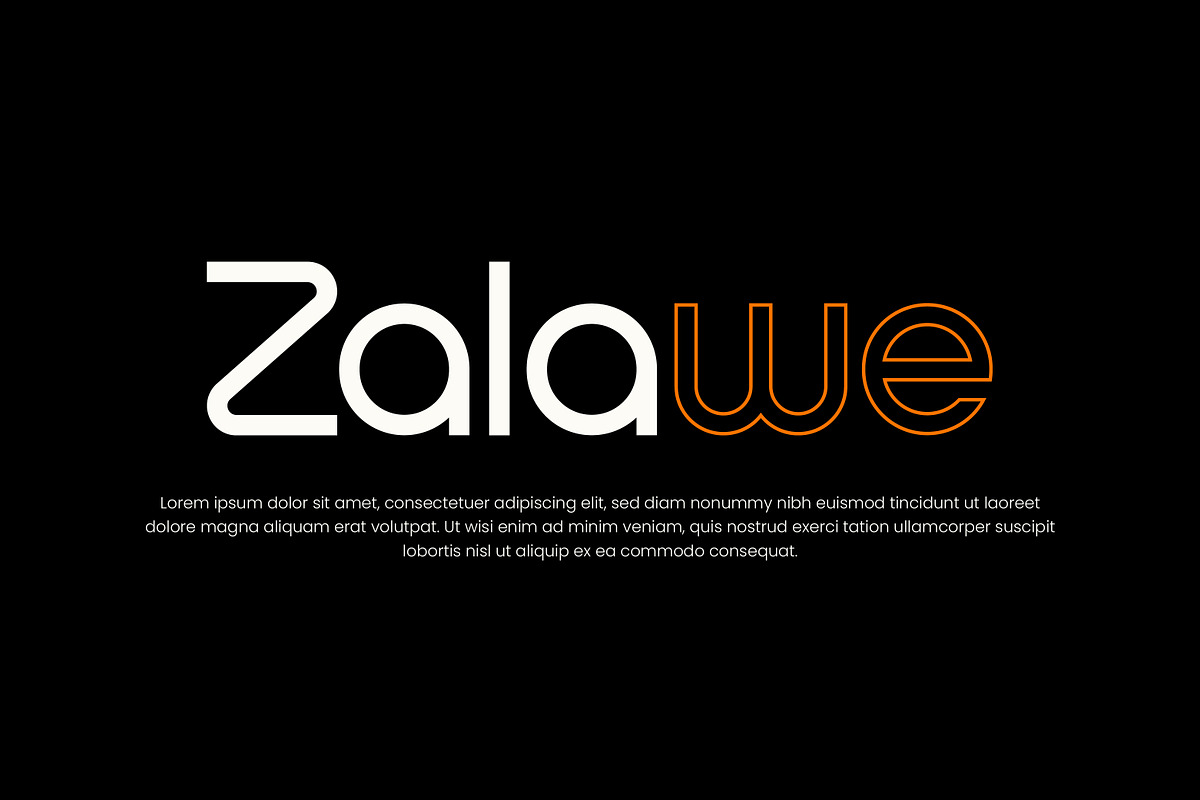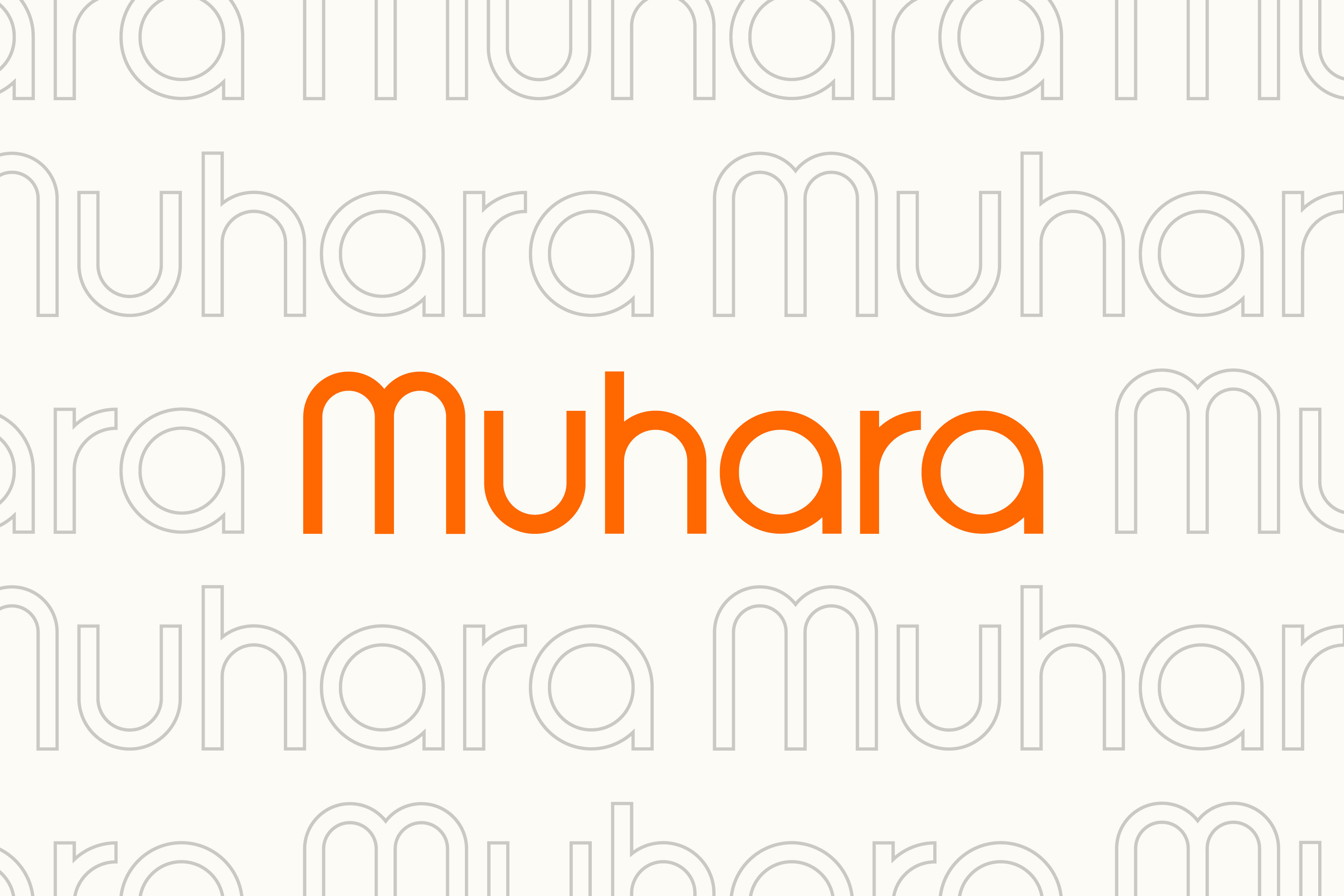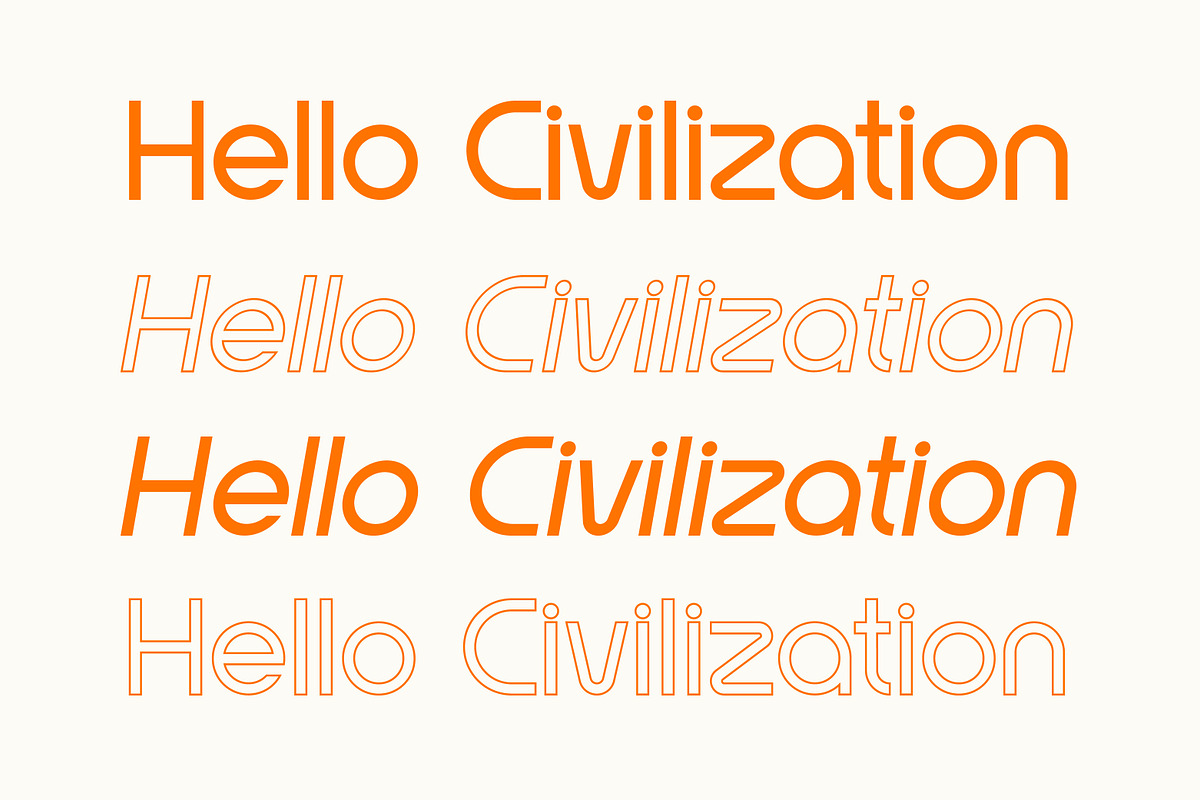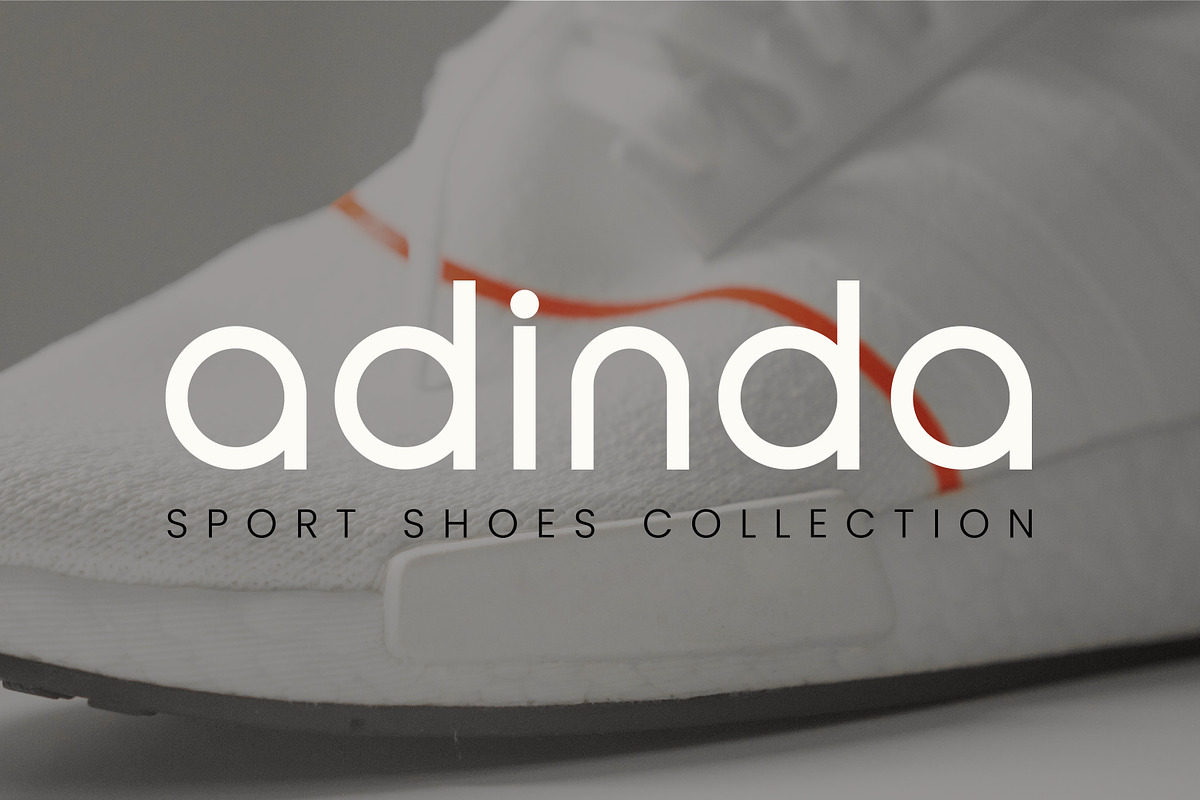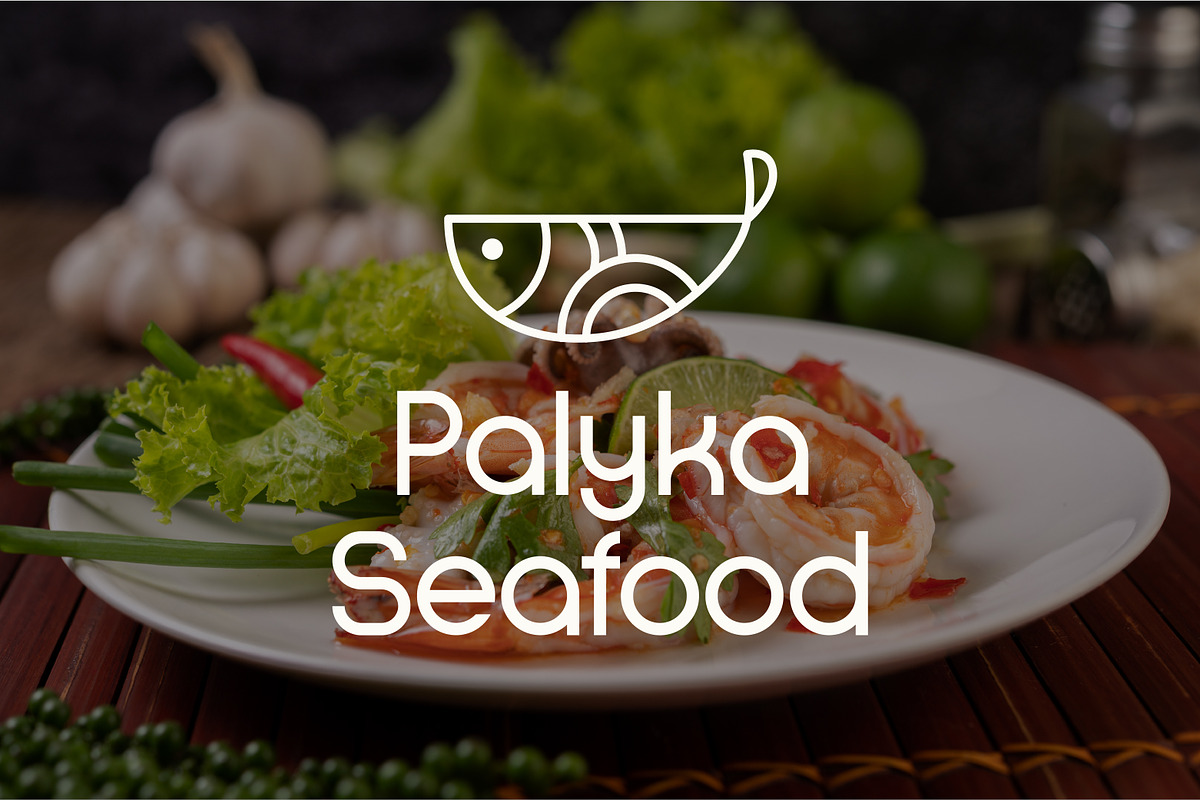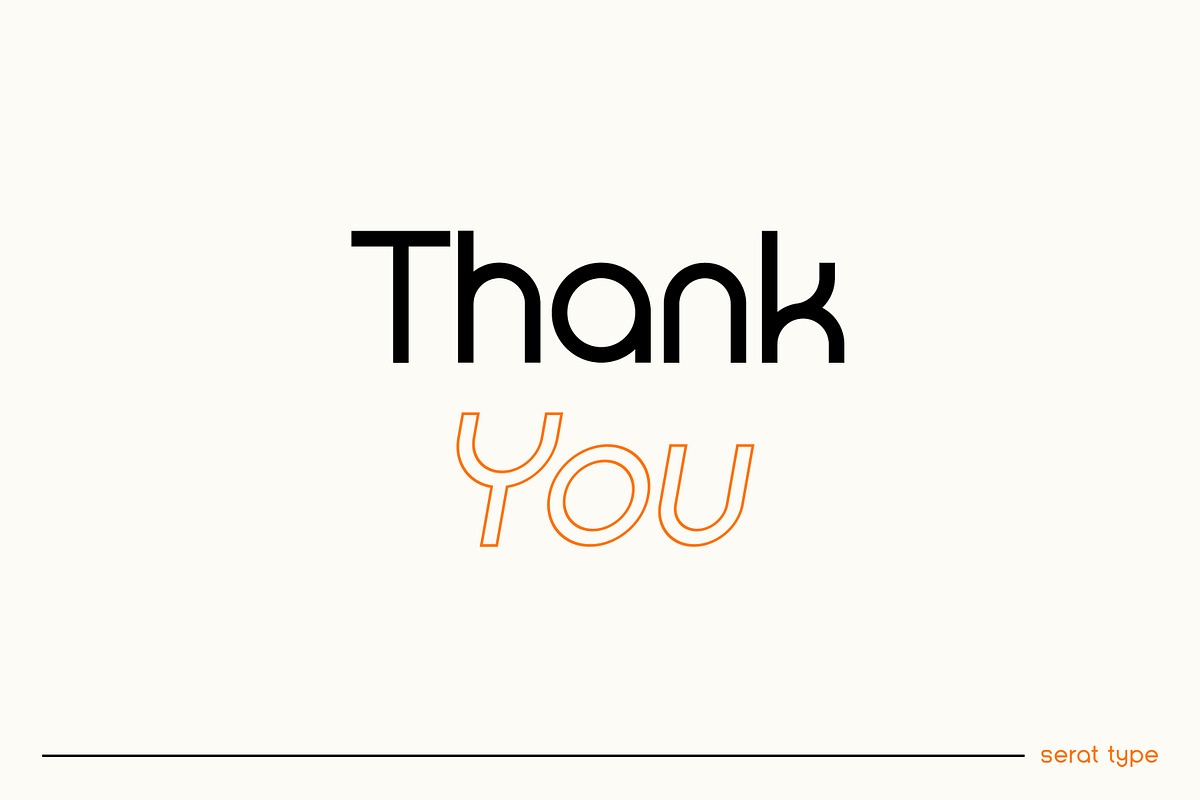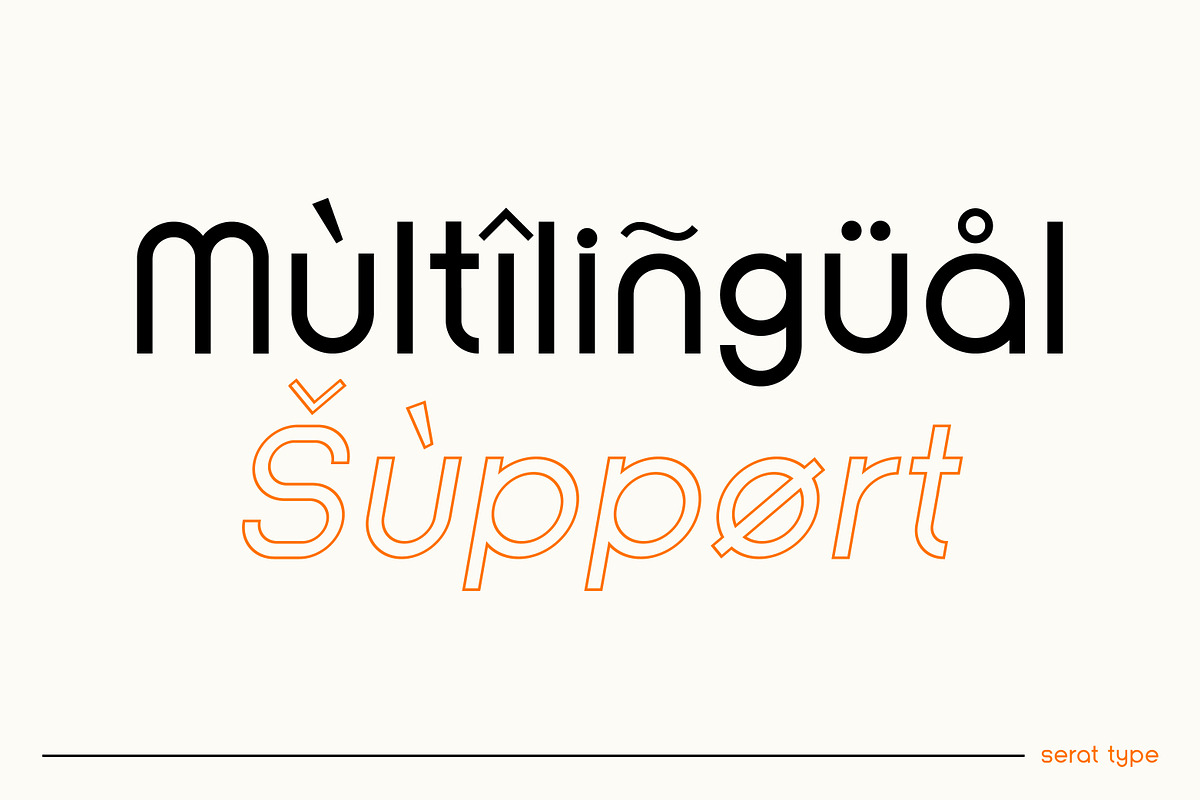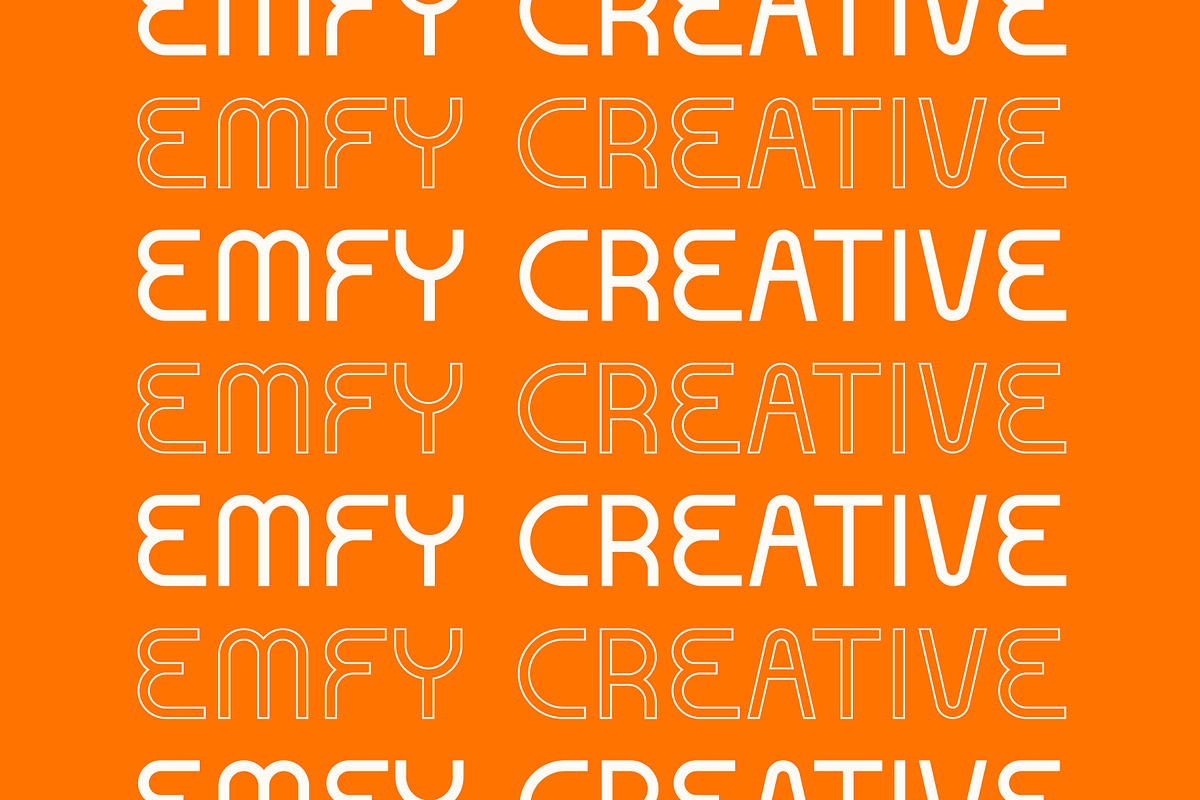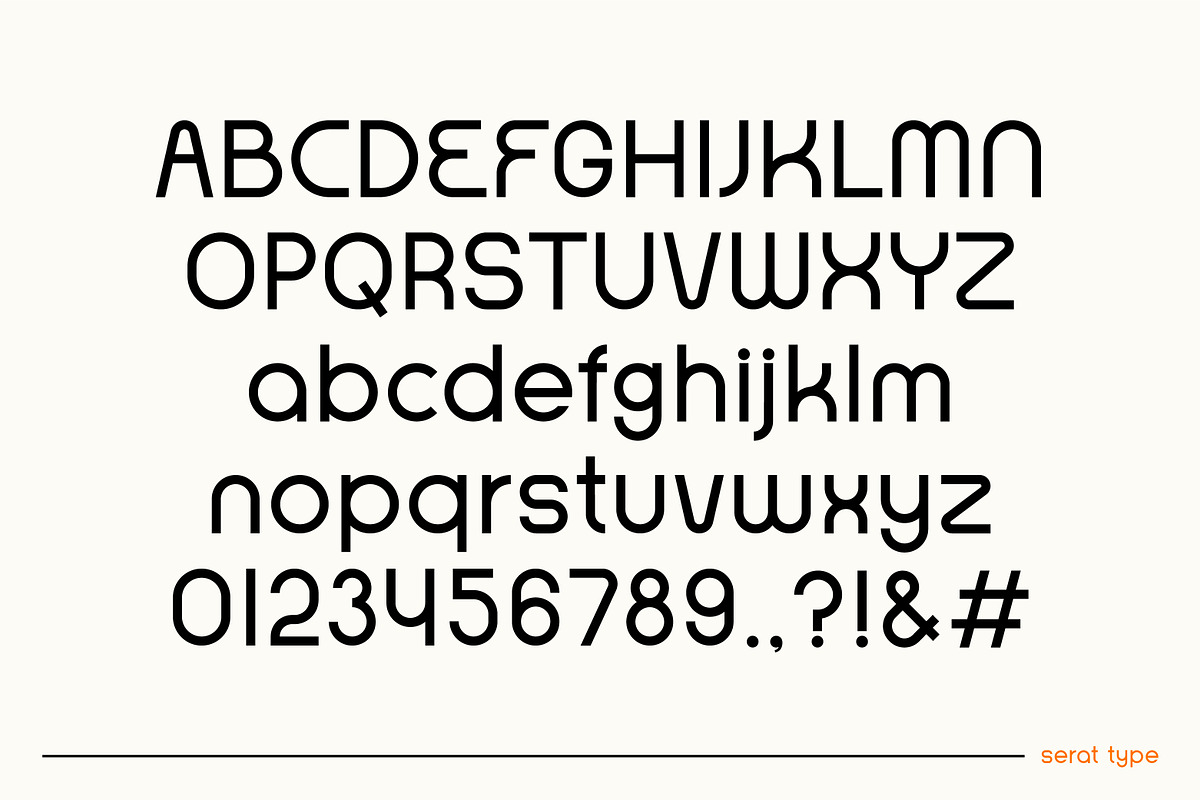
Muhara | Modern Sans Serif Font
Muhara – Modern Sans Serif Font Family. This fonts has a modern, elegant, casual, and playful character with geometric shape. Suitable for Logo Design and your various special project needs.
- Uppercase Character
- Lowercase Character
- Number & Punctuation